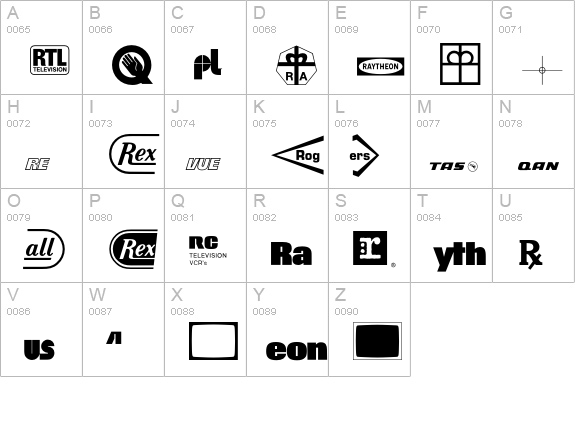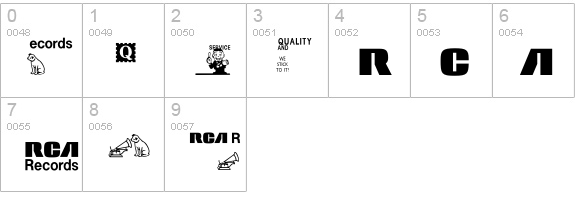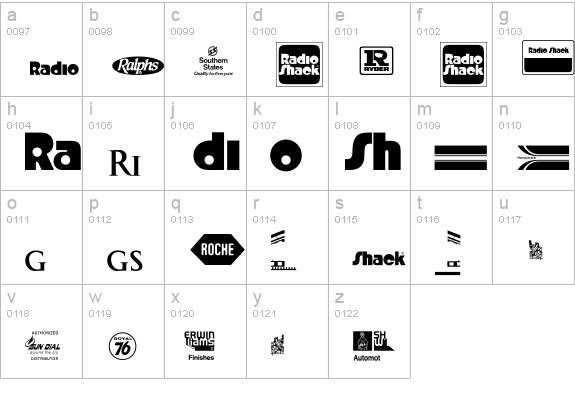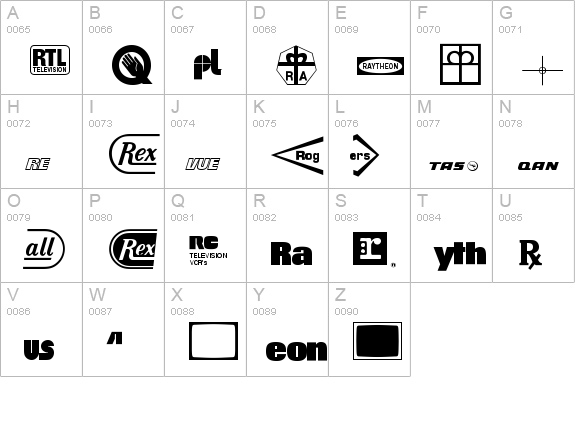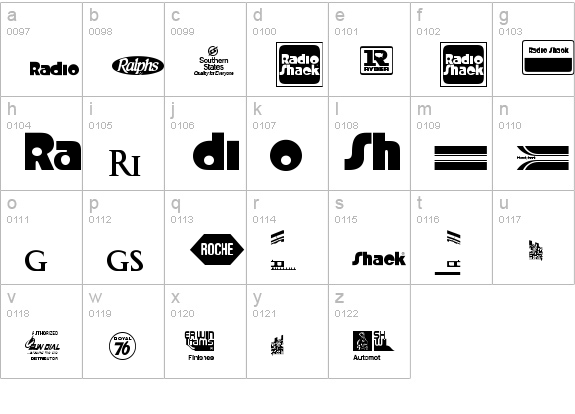
LogosCompanyP15 Font Details
Introducing LogosCompanyP15 font, a sleek and modern typeface perfect for all your design needs. This versatile font is characterized by its clean lines and distinct style, making it suitable for a wide range of projects. Whether you're working on branding materials, website designs, or print publications, LogosCompanyP15 font will surely make your text stand out. What sets LogosCompanyP15 font apart is not only its striking appearance but also its accessibility. This font is completely free to download at FontsMarket.com, allowing you to elevate your designs without breaking the bank. With LogosCompanyP15 font, you can add a touch of sophistication and professionalism to your projects effortlessly. Don't miss out on the opportunity to enhance your creative work with LogosCompanyP15 font. Download it for free today and see the difference it can make in your designs!